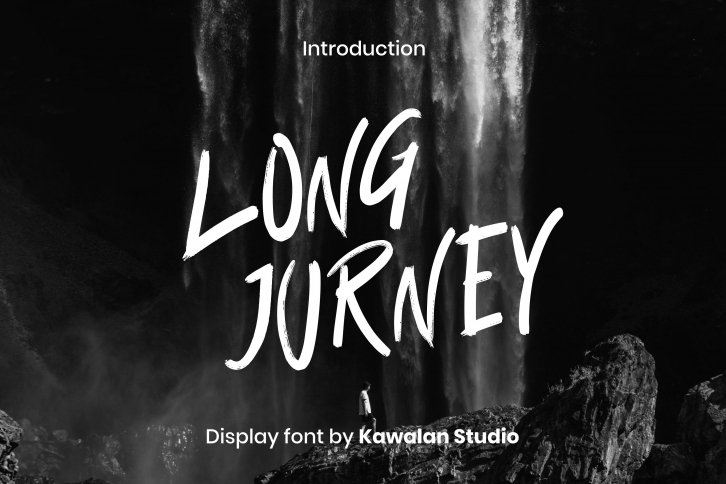
Long Jurney is a cool, rough textured display font. This font is suitable for designs such as t-shirts, sportswear, logos, advertisements, clothing, and more.